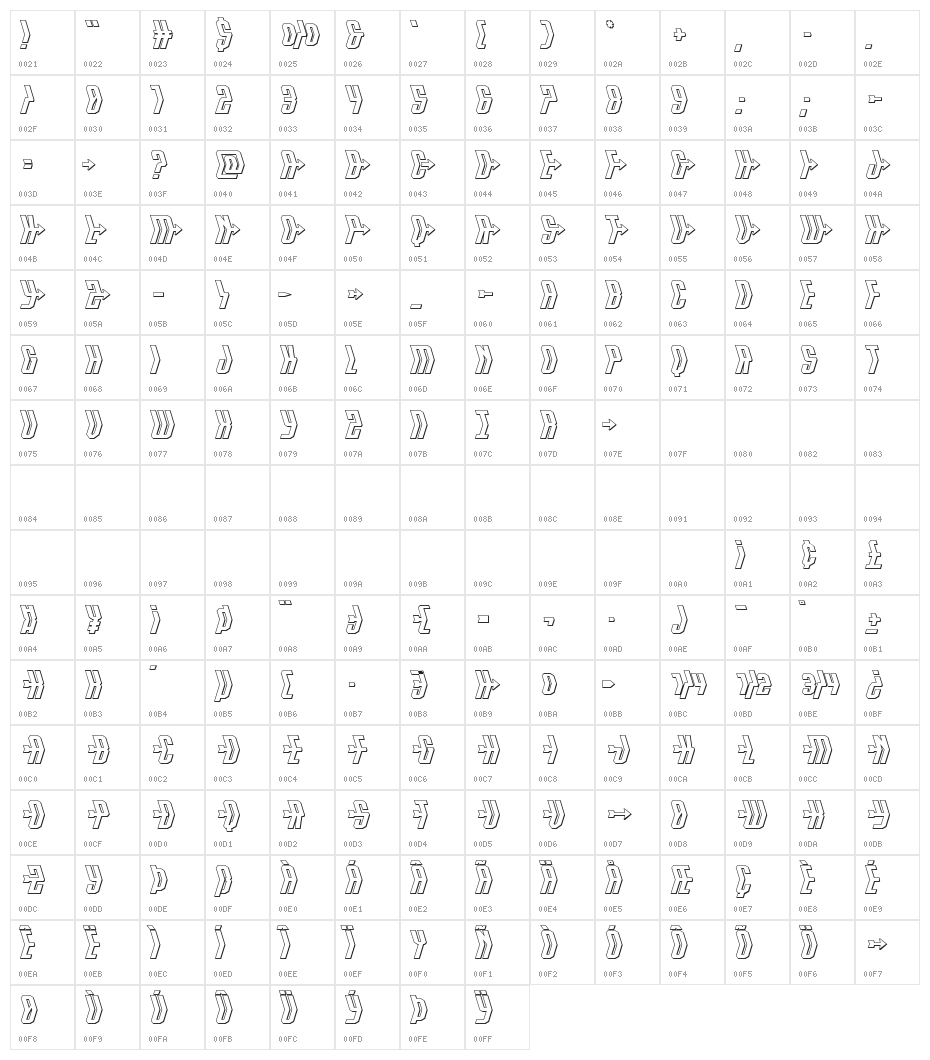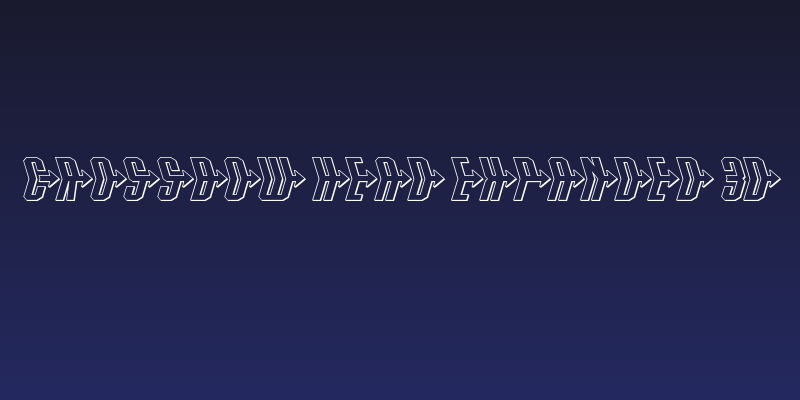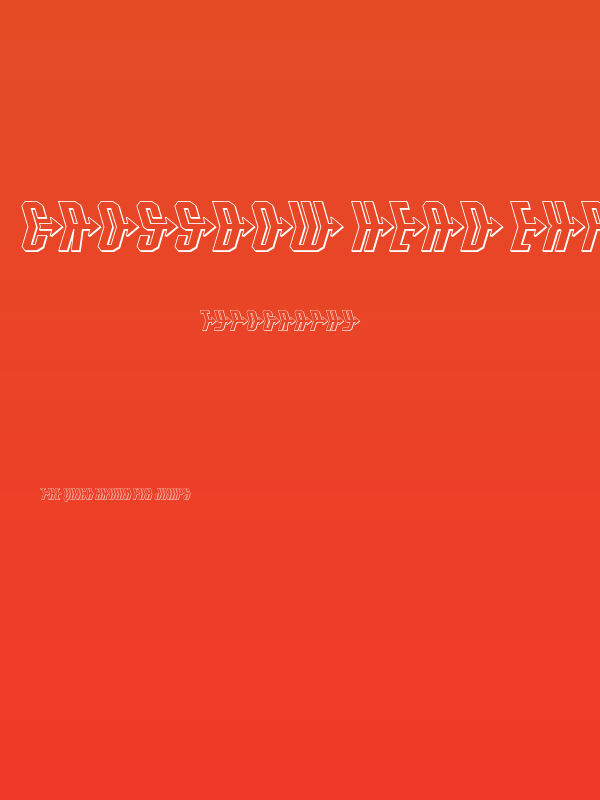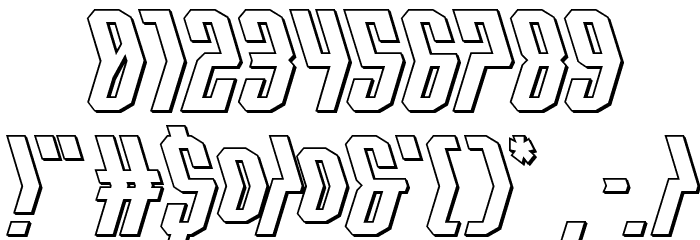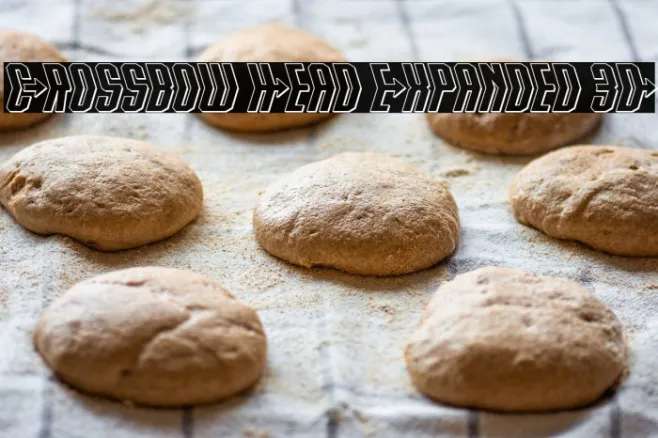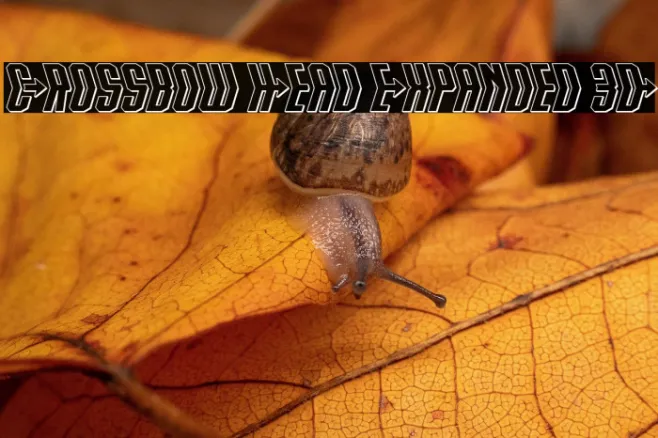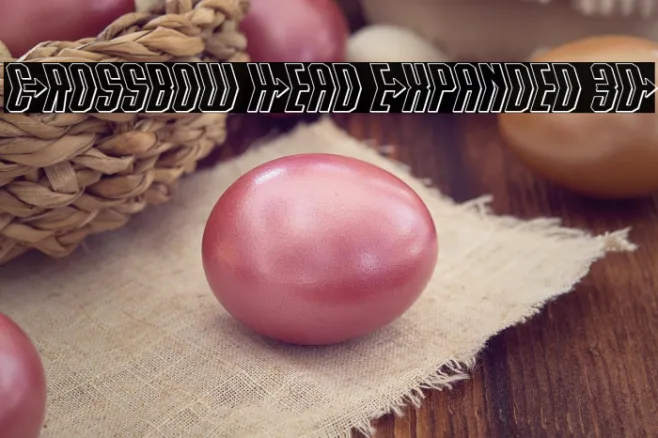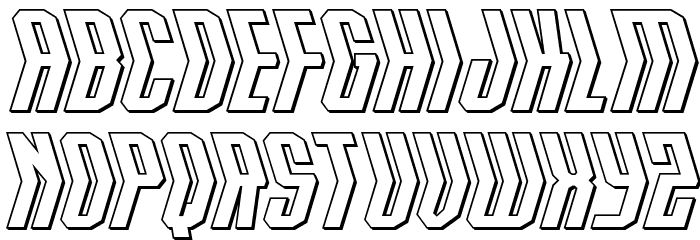
Crossbow Head Expanded 3D Font
Crossbow Head Expanded 3D Description
This font features a bold, three-dimensional design with an expanded width, creating a striking and dynamic appearance. The characters are outlined with a thick border, enhancing the 3D effect and giving each letter a sense of depth and movement. The angular and geometric shapes of the letters contribute to a futuristic and modern aesthetic, making it ideal for attention-grabbing headlines or logos. The font includes a full set of uppercase letters, numbers, and a variety of special characters, all maintaining the same bold and expanded style.
| Proposed Projects | Ideal for use in logos, posters, video game titles, and any project requiring a bold, futuristic look. |